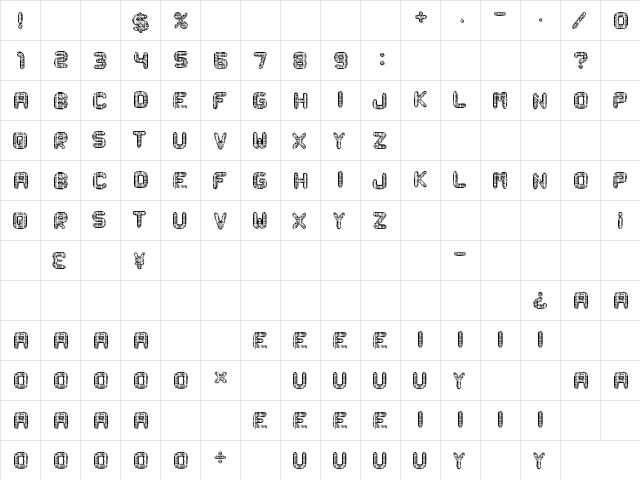
Metal Curvy Regular
| Designer | Woodcutter Manero |
Design Context for Metal Curvy Typeface
Metal Curvy is a composed and adaptable typeface that performs quietly and consistently across a wide range of design contexts.